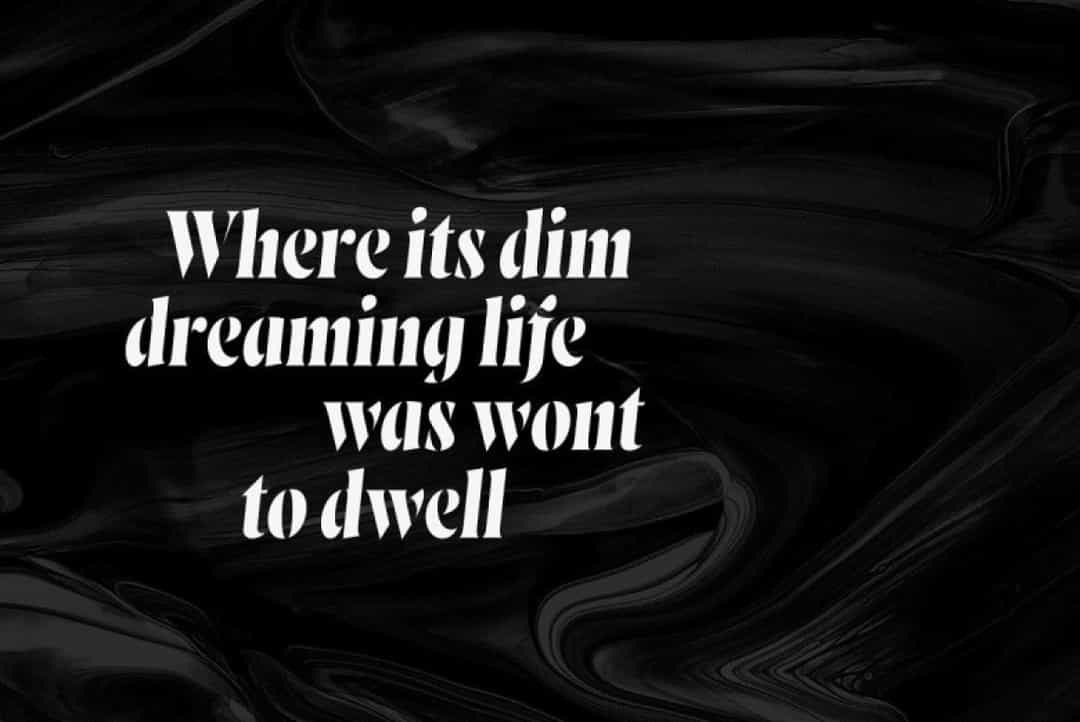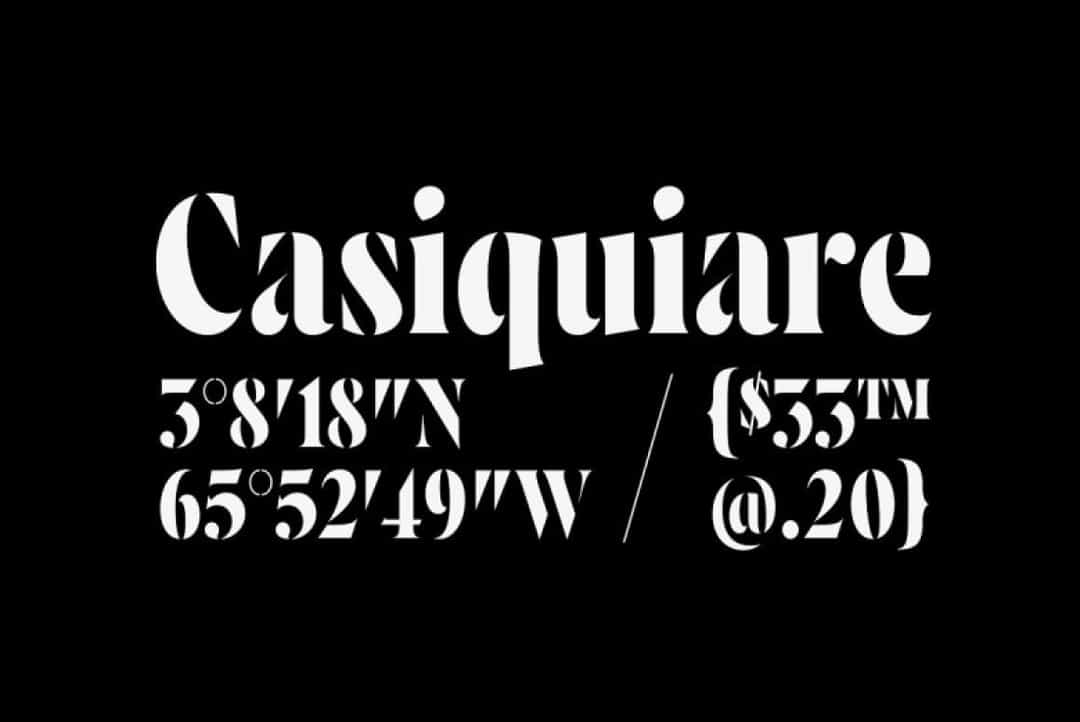
Wayfinder Stencil CF Font is a stencil serif built for branding, logos, and headlines. Its dramatic curves and contrast are perfect for fashion, tech, art, food, and packaging. Seven weights and italics provide a wide range of elegant applications.